In use: the over-over-overprint and the capital A
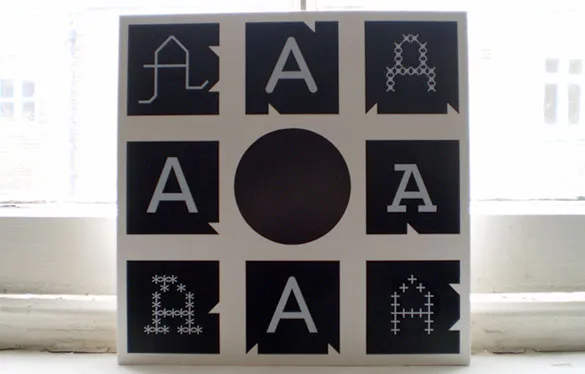
Longtime Process Type Foundry collaborator Allon Kaye of Entr’acte sent along this 12″ sleeve using eight of our capital A’s. It’s probably best to let Allon describe the project:
“it’s an over-over-overprint of process [type foundry] ‘a’s for an event-only edition (15 copies) of a new 12″ (alpha, by jo thomas). these were originally overprinted for an event called avoid. the printers ran too many copies, so i overprinted the ‘avid’ lettering (‘o’ was the centre hole) with a blocky, abstract ‘entracte’. i’ve been using these ‘reject’ sleeves for promos etc., but every so often i get to do something a bit more special with them.”